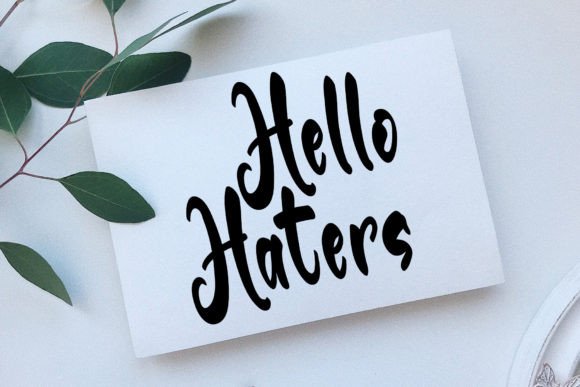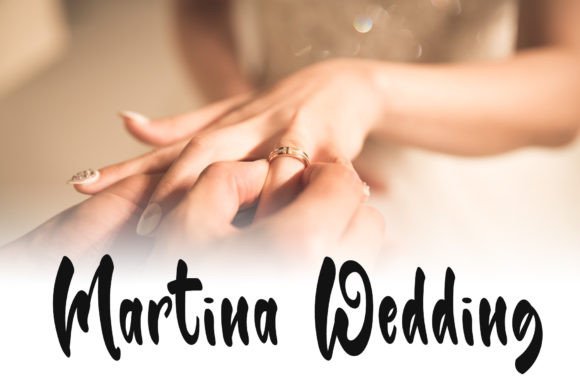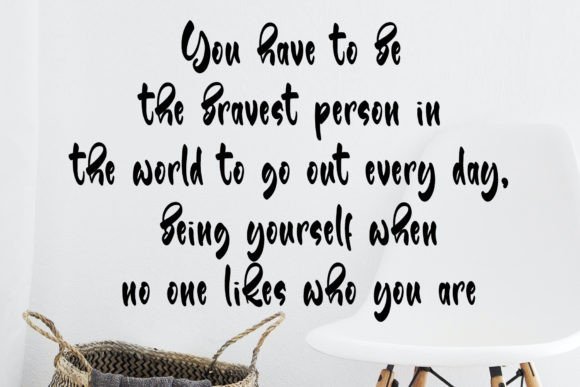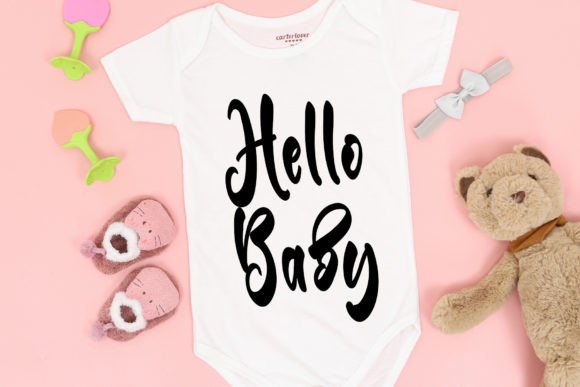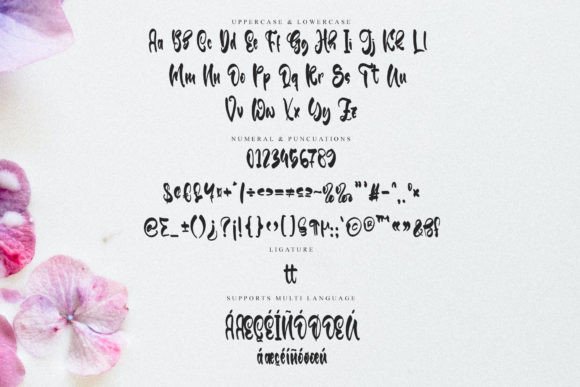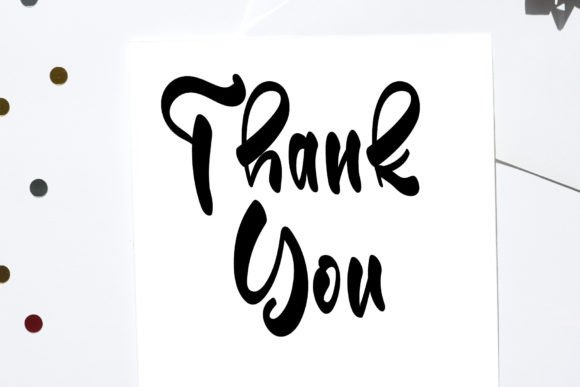
Introducing Flusher Font: Elevate Your Designs with Timeless Elegance
In the world of typography, a font can make or break a design. For designers and crafters seeking to add a touch of sophistication and style to their projects, Flusher Font is an exceptional choice. This stunning handwritten font boasts a contemporary atmosphere, impeccable form, and a balanced, varied aesthetic that is sure to elevate your work.
Inspired by Timeless Classic Calligraphy
Flusher Font draws inspiration from the classic calligraphy of yesteryear, infusing it with a modern twist. The result is a font that exudes elegance, poise, and refinement. With its roots in traditional calligraphy, Flusher Font brings a sense of heritage and sophistication to any project, making it perfect for designers seeking to create something truly special.
Contemporary Atmosphere and Impeccable Form
What sets Flusher Font apart is its unique blend of classic charm and modern flair. The font’s contemporary atmosphere is characterized by clean lines, subtle curves, and a balanced structure that gives it a fresh, modern feel. At the same time, its impeccable form ensures that every letter and character is meticulously crafted to perfection, resulting in a font that is both beautiful and highly legible.
Balanced and Varied: The Key to Versatility
One of the standout features of Flusher Font is its balanced and varied design. The font comes with a range of characters, including uppercase and lowercase letters, numbers, and punctuation marks, ensuring that you have everything you need to create stunning text-based designs. The varied letterforms and subtle nuances in the font’s design also make it highly versatile, allowing you to use it for a wide range of projects, from elegant invitations and branding materials to blog posts and social media graphics.
Enhance the Beauty of Your Projects
Whether you’re a designer, crafter, or DIY enthusiast, Flusher Font is the perfect tool to enhance the beauty of your projects. With its sophisticated aesthetic and exceptional legibility, this font can be used to create stunning visual content that captures the attention of your audience and leaves a lasting impression. From wedding invitations and business cards to blog headers and social media posts, Flusher Font is the perfect choice for anyone seeking to add a touch of elegance and refinement to their designs.
Why Choose Flusher Font?
- Unique and stylish design: Flusher Font boasts a distinctive, stylish design that sets it apart from other fonts.
- Exceptional legibility: The font’s clear, balanced design ensures that your text is easy to read, even at small sizes.
- Highly versatile: With a range of characters and a varied design, Flusher Font can be used for a wide range of projects.
- Elegant and refined: This font’s sophisticated aesthetic makes it perfect for designers seeking to create elegant, high-end designs.